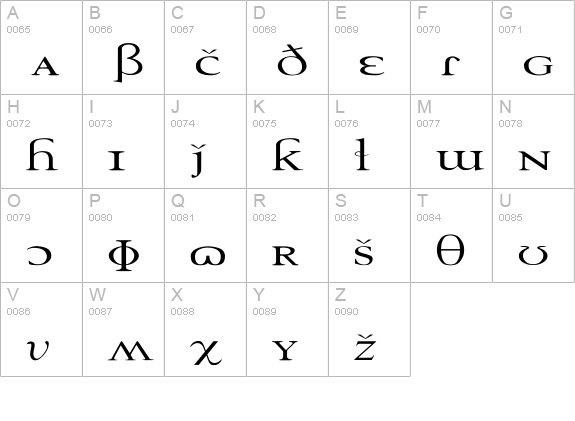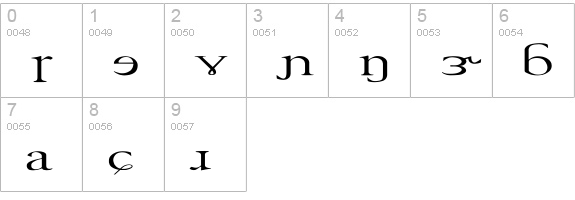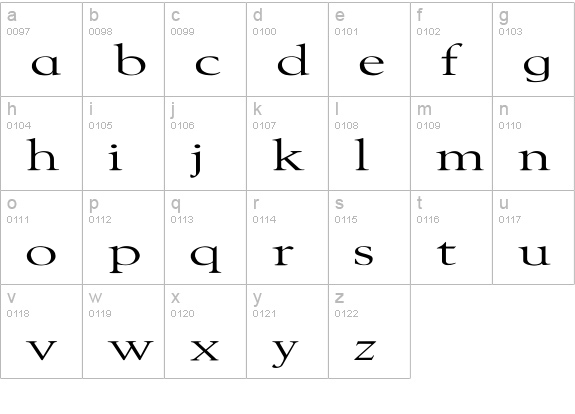
TechPhonetic Ex Font Details
Introducing TechPhonetic Ex, a cutting-edge font that combines sleek modern design with a touch of futuristic flair. This font is perfect for those looking to add a high-tech, dynamic touch to their designs. With its clean lines and sharp edges, TechPhonetic Ex is sure to make a bold statement. But what sets TechPhonetic Ex apart from other fonts is that it is not only visually stunning, but also free. That's right, this incredible font is freely available to download at FontsMarket.com. Whether you're a graphic designer, web developer, or simply someone looking to add a touch of sophistication to your personal projects, TechPhonetic Ex is the perfect choice. Designed with versatility in mind, TechPhonetic Ex is suitable for a wide range of applications. From logos and branding to posters and websites, this font can elevate any design to a whole new level. Its clean and legible characters ensure readability, even at small sizes, making it ideal for both print and digital projects. TechPhonetic Ex is not just a font, it's a statement. It represents innovation, creativity, and the limitless possibilities of the digital age. So why settle for ordinary when you can have extraordinary? Download TechPhonetic Ex for free at FontsMarket.com and embark on a journey of design excellence.